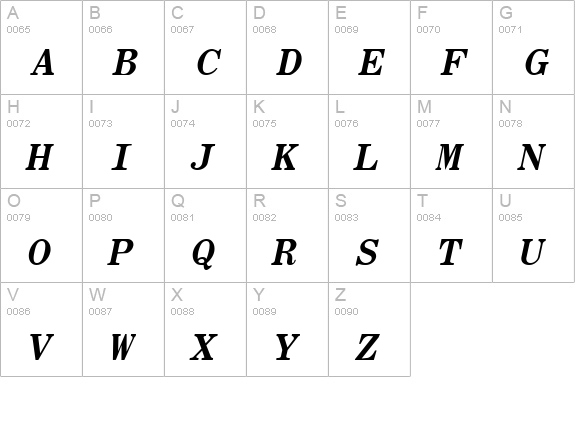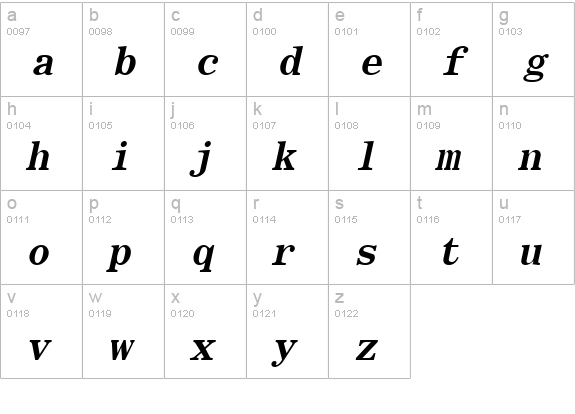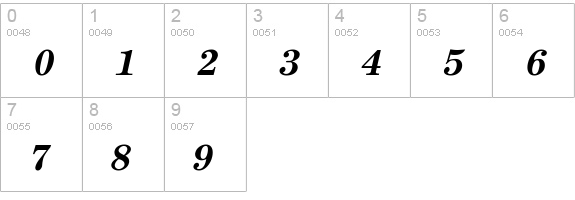
RomanFixedWidth Bold Italic Font Details
RomanFixedWidth Bold Italic is a strong, high-contrast, italic variant in the RomanFixedWidth typeface family \xE2\x80\x94 well suited to headlines, attention-grabbing titles, and strong calls-to-action.
RomanFixedWidth Bold Italic is a stunning and versatile font that combines the classic elegance of Roman typography with a modern fixed-width design. This unique font style is perfect for adding a touch of sophistication and professionalism to any project. The bold and italic variations of RomanFixedWidth make it ideal for creating eye-catching headlines, titles, and headers that demand attention. What sets RomanFixedWidth Bold Italic apart is its seamless integration of traditional Roman letterforms with a contemporary fixed-width layout, resulting in a font that is both timeless and innovative. The bold weight adds a sense of strength and authority to your text, while the italic style conveys a sense of dynamism and style. Whether you are designing a website, creating a logo, or working on a print project, RomanFixedWidth Bold Italic is sure to make a lasting impression. Best of all, this font is available for free download at FontsMarket.com, allowing you to easily access this stylish and versatile typeface for all your design needs. Upgrade your typography game with RomanFixedWidth Bold Italic today!